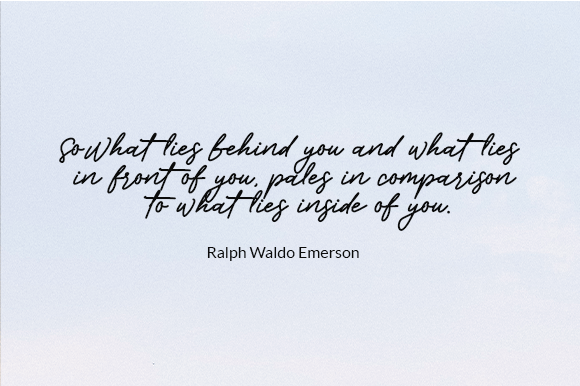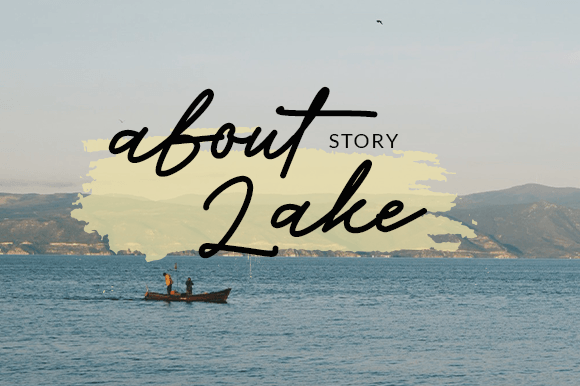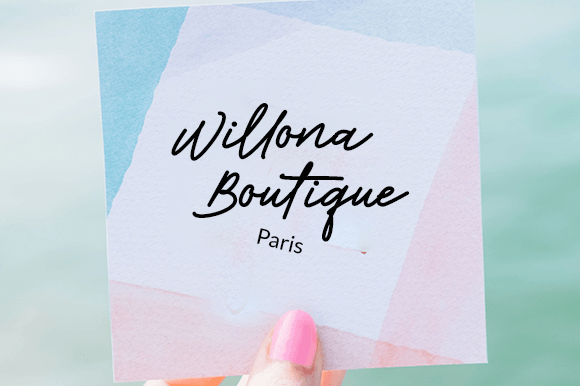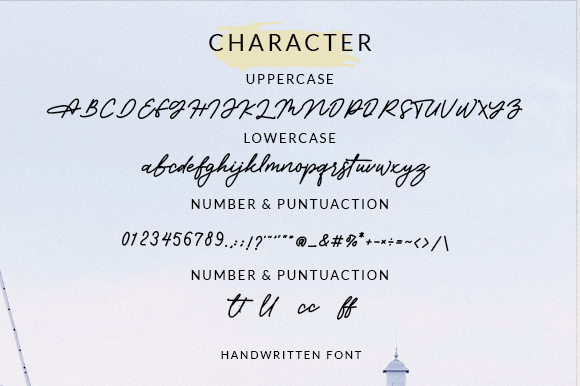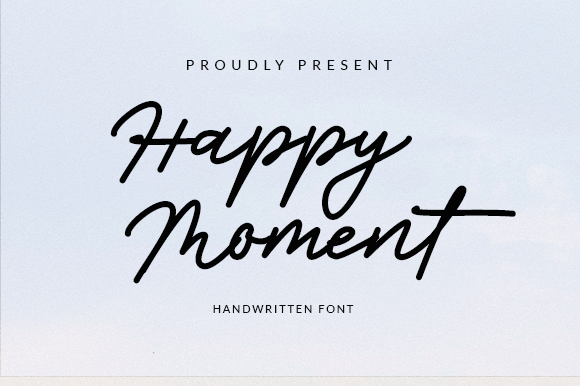
Introducing Happy Moment Font: Elevate Your Designs with Elegance and Flair
In the world of typography, fonts play a pivotal role in conveying messages, evoking emotions, and creating lasting impressions. Among the myriad of fonts available, Happy Moment Font stands out as a beacon of elegance and sophistication. This exquisite handwriting font is meticulously crafted to bring a touch of class and modernity to any design project. Whether you’re a designer, a crafter, or simply someone who appreciates the beauty of typography, Happy Moment Font is sure to captivate you with its unique charm.
The Distinct Characteristics of Happy Moment Font
Happy Moments is not just another font; it’s an elegant and flowing handwriting script that embodies the essence of refined typography. Its distinct basics, smooth lines, and beautiful glyphs set it apart from more conventional fonts. Each letter is carefully designed to contribute to the overall aesthetic of the font, ensuring that it not only looks modern but also exudes a timeless elegance.
The beauty of Happy Moment Font lies in its dual ability to convey both elegance and a modern touch. This balance is no easy feat in typography, as fonts often lean towards being either classic and traditional or contemporary and trendy. Happy Moments, however, strikes a perfect chord between these two extremes, making it incredibly versatile for a wide range of design applications.
Crafting with Happy Moment Font: A Delight for Designers and Crafters
For designers and crafters, finding the right font can often be a daunting task. The font needs to resonate with the project’s theme, convey the intended message effectively, and most importantly, engage the audience. Happy Moment Font checks all these boxes and more. Its flowing lines and elegant glyphs make it perfect for projects that demand a touch of sophistication and class.
Whether you’re working on a branding project, creating wedding invitations, designing greeting cards, or crafting beautiful journal entries, Happy Moment Font can elevate your work to new heights. Its unique style ensures that your designs stand out in a crowded digital landscape, making them more memorable and impactful.
The Technical Beauty of Happy Moment Font
One of the key features of Happy Moment Font is its technical finesse. The lines flow smoothly, and each glyph is designed to complement the others, creating a harmonious and visually appealing text. This attention to detail ensures that the font is not only beautiful but also highly legible, making it suitable for both digital and print media.
Furthermore, the modern touch infused into its elegant design means that Happy Moment Font can seamlessly fit into contemporary design trends without losing its classic appeal. This blend of old and new makes it a valuable asset for designers looking to create works that are both current and timeless.
Why Choose Happy Moment Font?
There are numerous reasons why Happy Moment Font should be your go-to choice for your next design project:
- Elegance and Modernity: It combines classic elegance with a modern touch, making it suitable for a wide range of projects.
- Versatility: Happy Moment Font can be used in various design applications, from digital interfaces to print materials.
- Legibility: Despite its elegant and flowing lines, the font maintains high legibility, ensuring your message is conveyed clearly.
- Unique Aesthetic: Its distinct style sets it apart from more commonly used fonts, ensuring your designs stand out.
| Font Name | Happy Moment Font |
| Author | Muwatta Studio |
Happy Moment Font is more than just a typeface; it’s a design element that can transform your projects with its elegance, modernity, and unique charm. Whether you’re a professional designer, a crafter, or someone who appreciates beautiful typography, Happy Moments offers a world of creative possibilities. With its smooth lines, beautiful glyphs, and distinct style, this font is poised to leave a lasting impression on your audience. So, why settle for ordinary when you can create something extraordinary with Happy Moment Font?